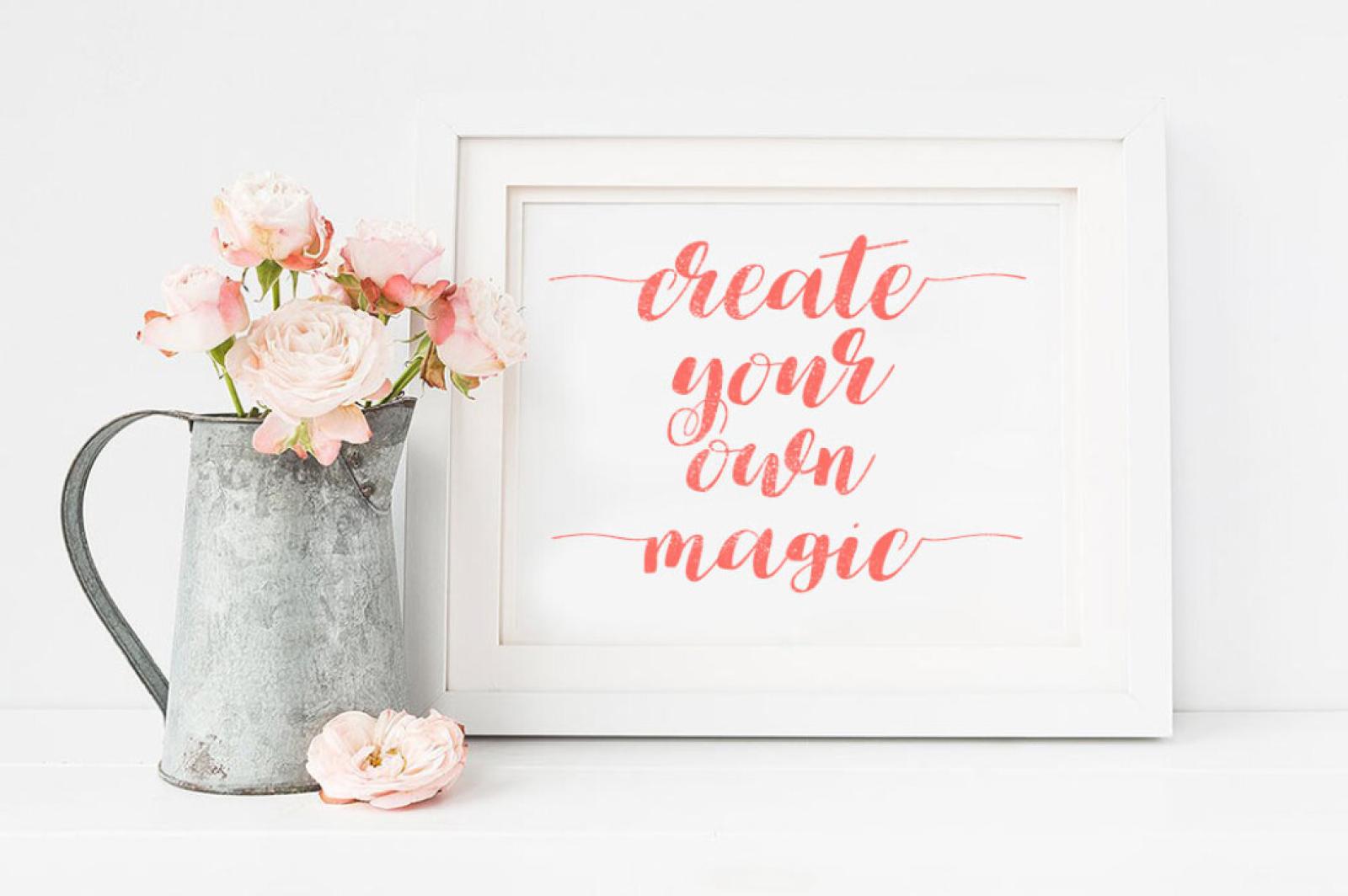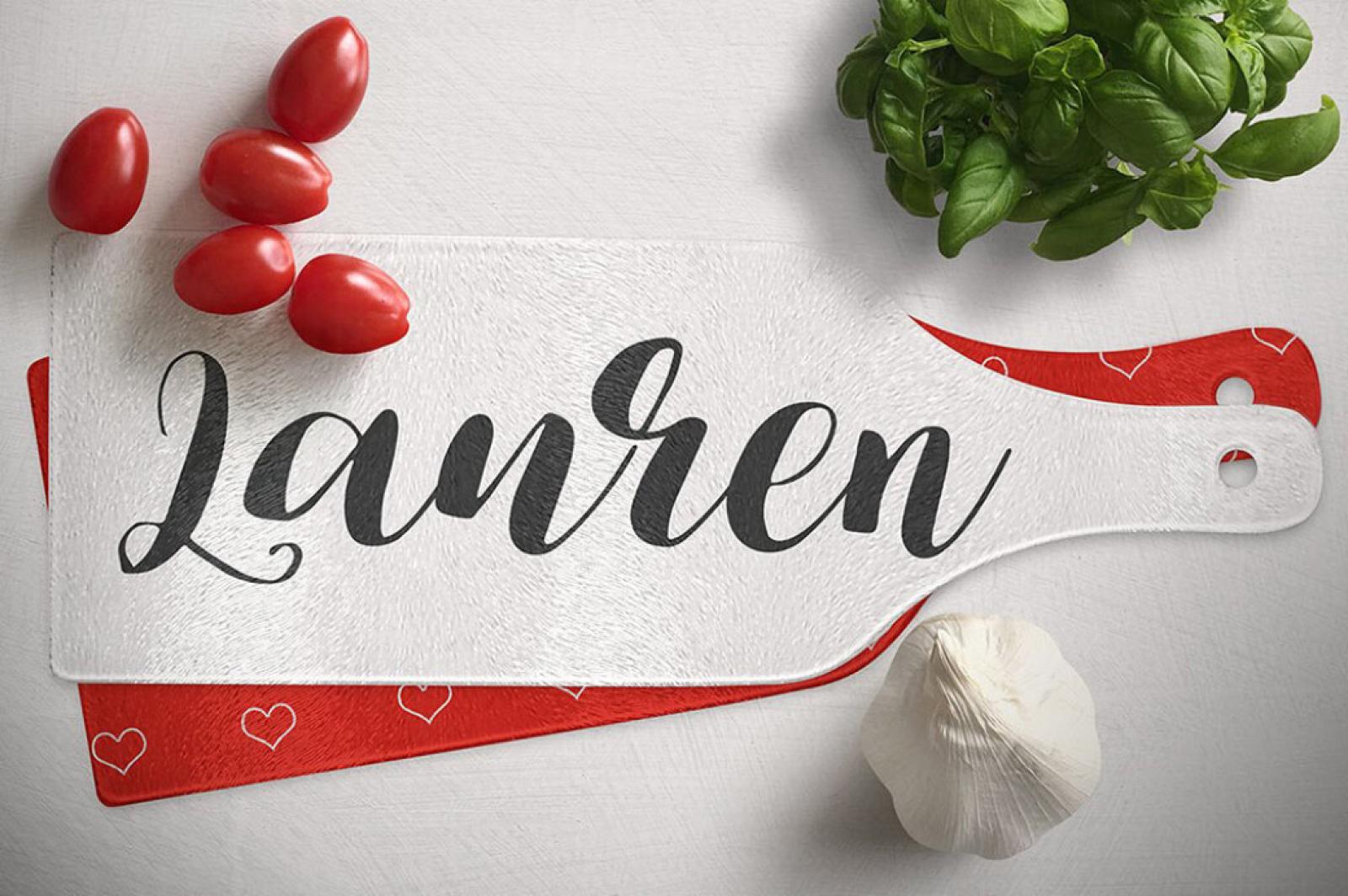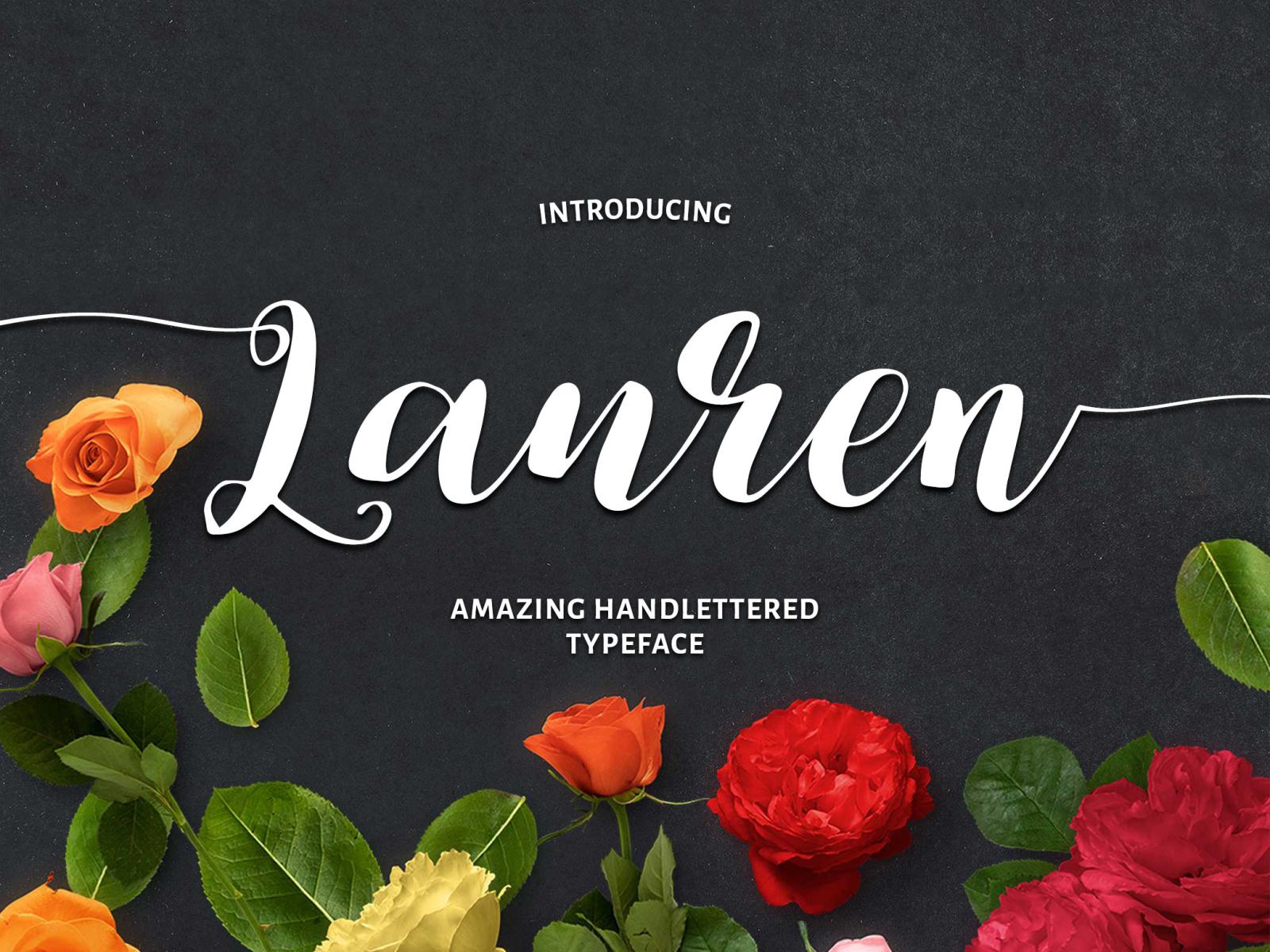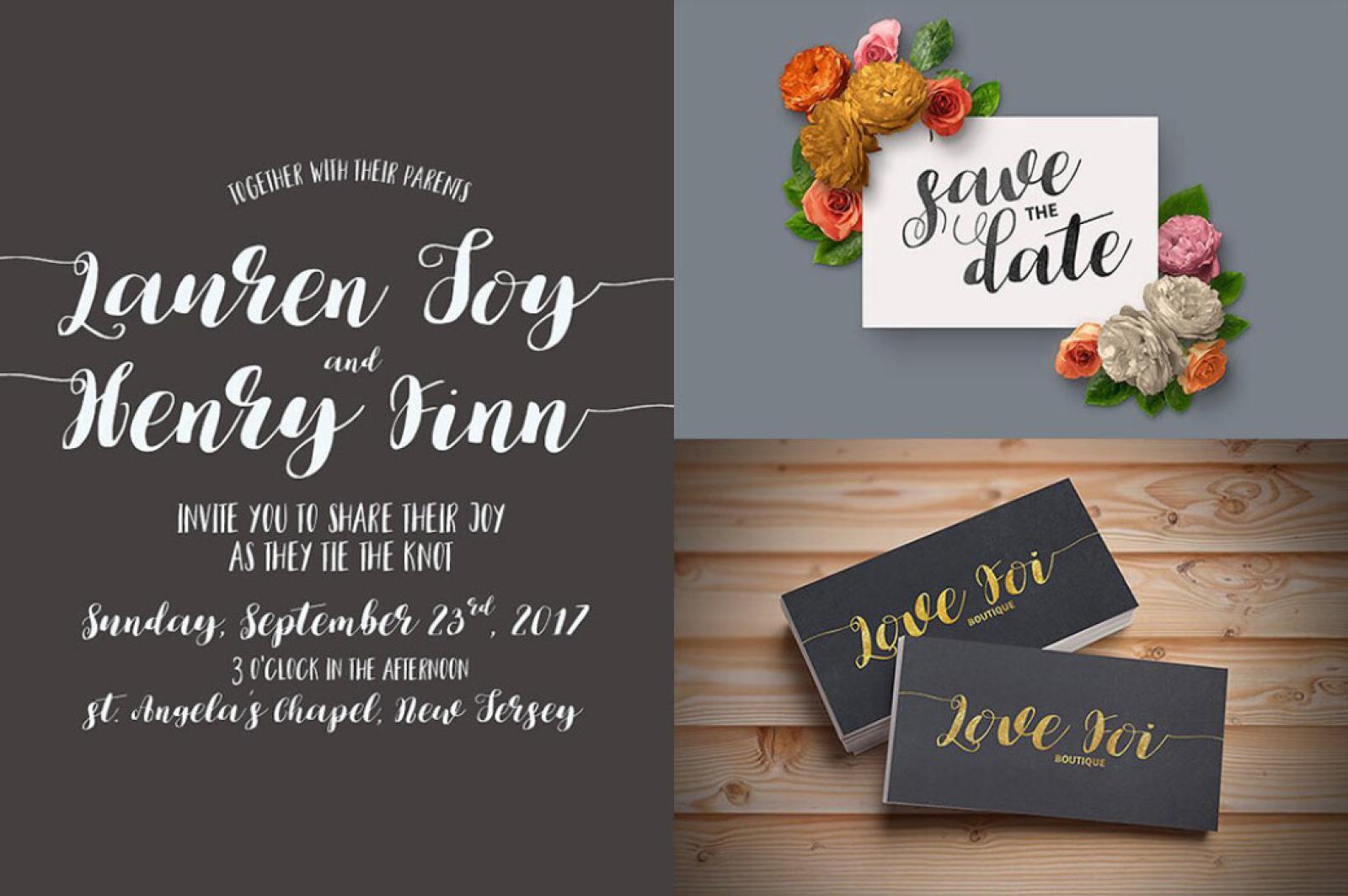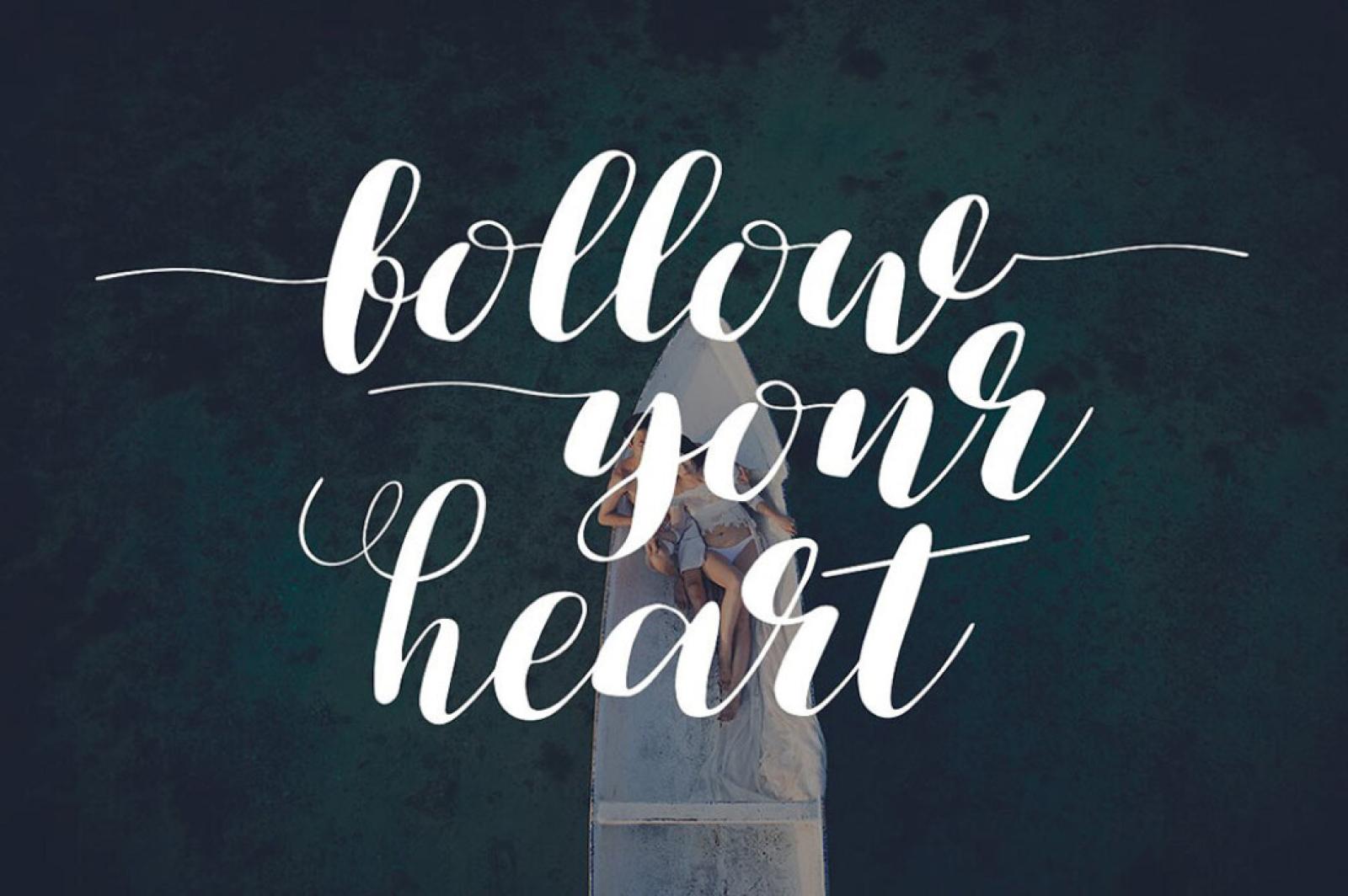
Lauren Script Font
There can't be too many calligraphy script fonts, right? So following this motto, we're introducing you the Lauren typeface. So light & bright, it can engrave astounding messages in your designs!
Professionally designed with love and care, Lauren provides you with rich stylistic alternates and ligatures via Open Type features. Besides, it comes in OTF, TTF, and Web Fonts formats. This script is destined to look gorgeous on greeting cards, branding materials, business cards, quotes, posters, and even more!